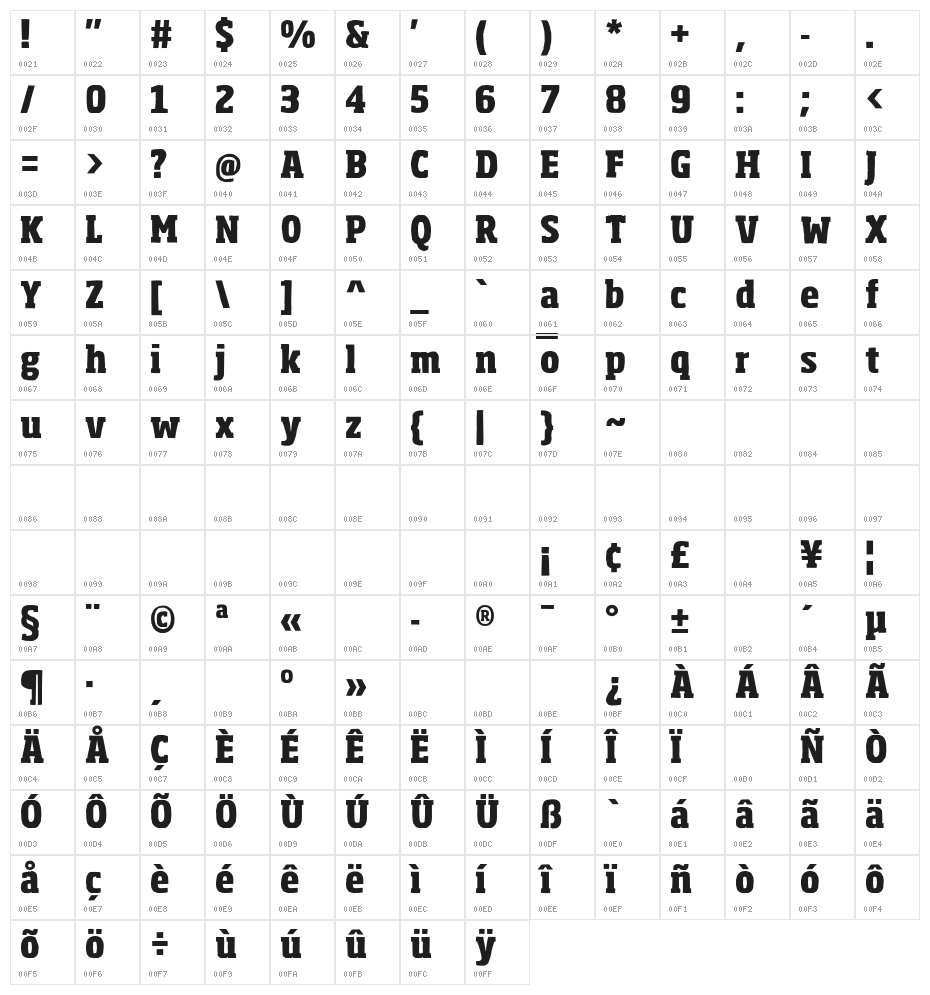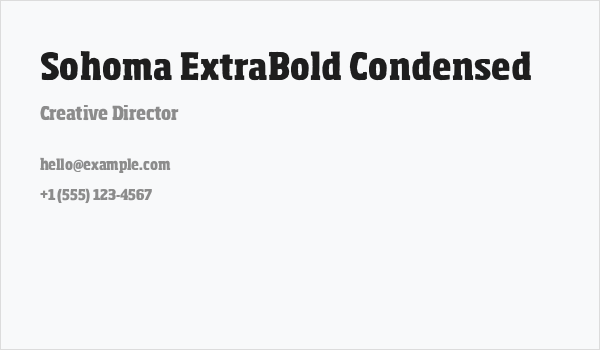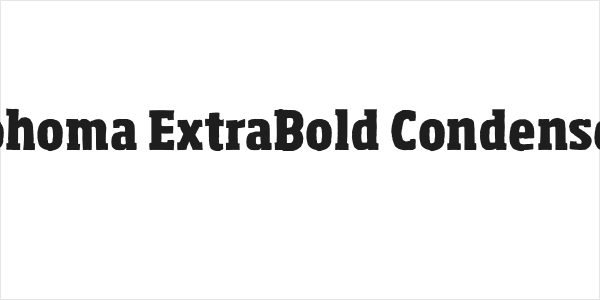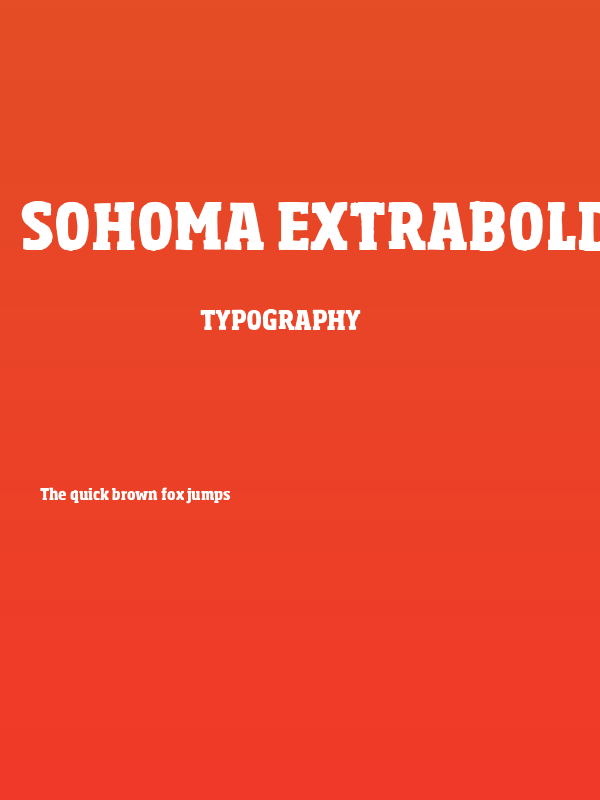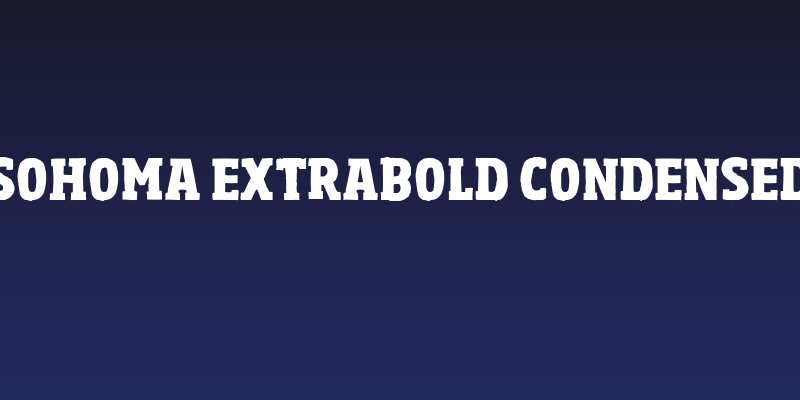
Sohoma ExtraBold Condensed Font
Sohoma ExtraBold Condensed Description
This font exhibits a bold and condensed style, characterized by thick, strong strokes that convey a sense of power and impact. The uppercase and lowercase letters maintain a consistent weight, providing a uniform appearance across the alphabet. The numbers and special characters are equally robust, ensuring readability and emphasis. The font's condensed nature allows for efficient use of space, making it suitable for headlines and titles where space is limited but impact is necessary. Its boldness and condensed form make it ideal for creating a strong visual presence.
| Proposed Projects | Ideal for headlines, posters, branding materials, and any project requiring a strong visual impact. |